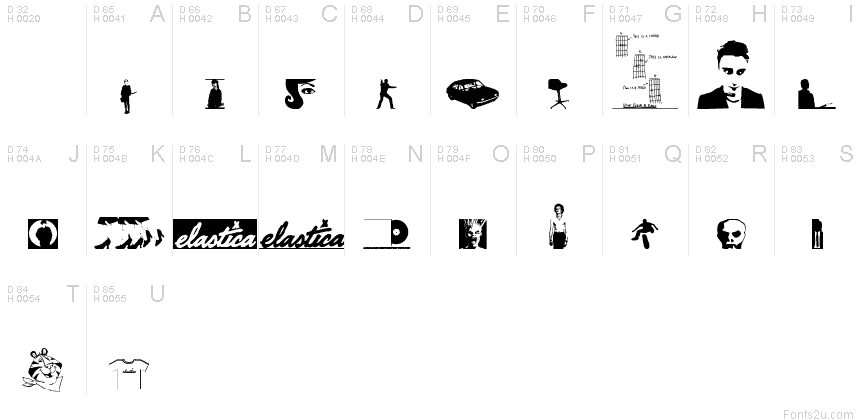
Keysmoney&Fagsbats is a free pictorial dingbat font built from compact symbol-like shapes. Its solid silhouettes favor simple, direct forms over detailed illustration, giving each mark the look of a small stamp or interface icon.
It can supply labels and merchandise with compact emblems, and its blunt shapes also suit posters and digital graphics. The symbols are most convincing when treated as part of the artwork, such as badges, repeated patterns, or illustrated markers.